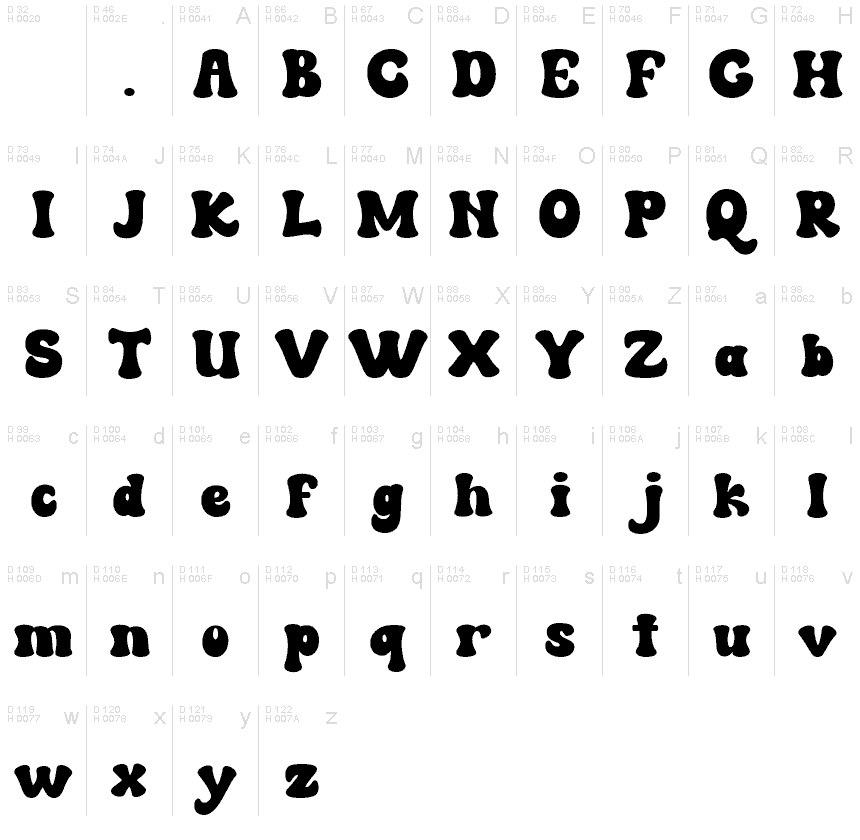
Marson Regular
Marson font is a groovy bold display font created by Achmad Yani of Flawless and Co. Retro-inspired, its charming characters are expressive, thick, and round but not necessarily classic. They are often described as being modern with a blend of both vintage and contemporary elements that lend expressiveness to the typography style.
The free display font works well in packaging which includes food, cosmetics, or apparel packages. Its uniqueness can be imported into product labels or be assimilated into branding projects such as logos and business card designs. Additional usages would cover stationery items like planners & notebooks as well as ads & social media visuals.